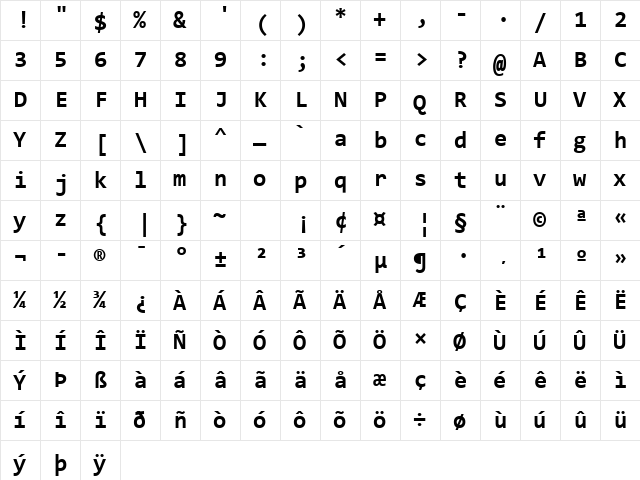
Consolas Bold Font Preview
Consolas Bold
Consolas Bold Font Details
| Foundry | Microsoft Corporation |
| Designer | Luc(as) de Groot |
Design Context for Consolas Typeface
Consolas offers clean, dependable letterforms without strong stylistic allegiance, making it a practical choice for designers who need flexibility. Its bold stroke weight gives it real presence on the page.